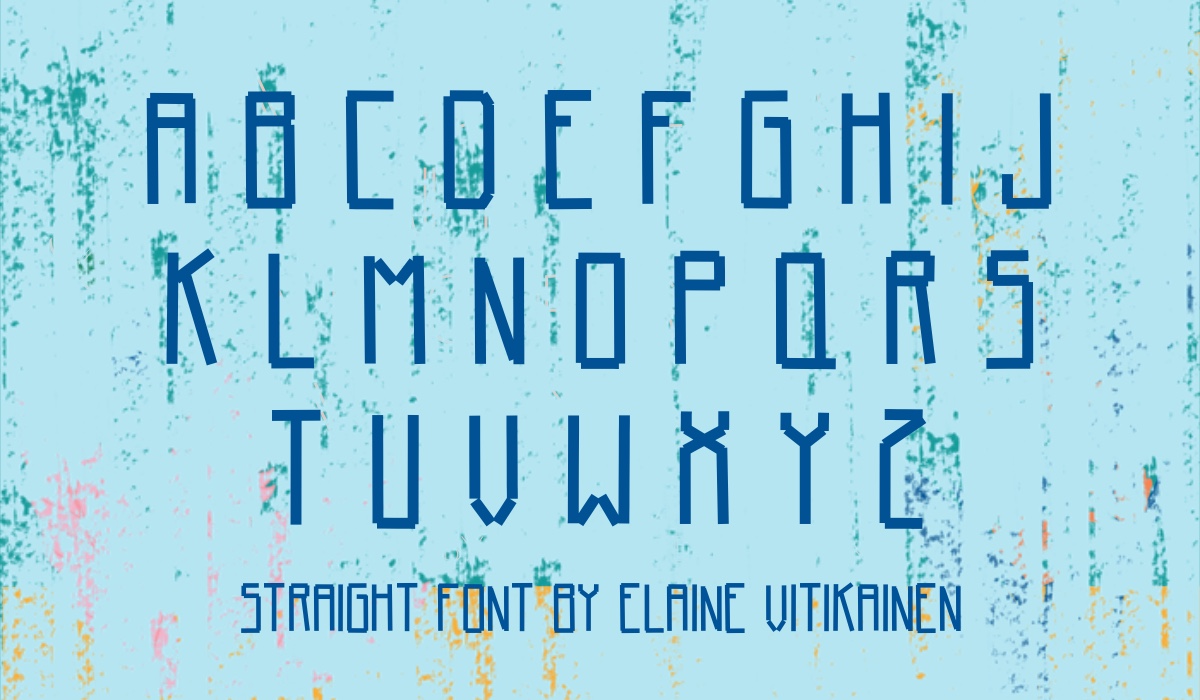
Straight Font
Elaine Vitikainen
I love creating fonts and I love to share them with you. This font set is called Straight Font just because they look so straight and stiff! This font is for personal and commercial use.